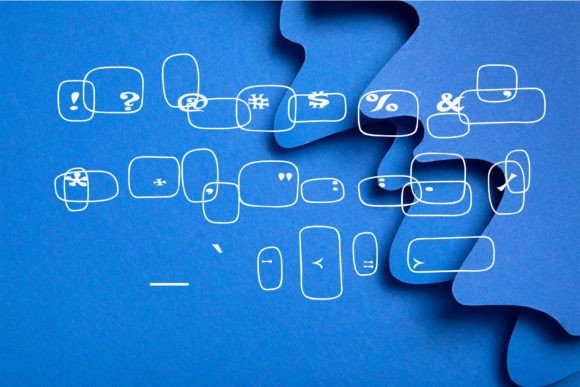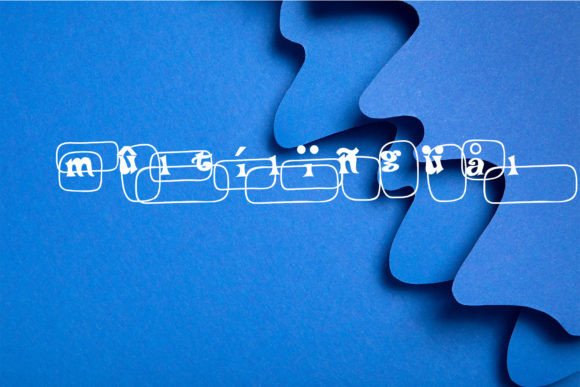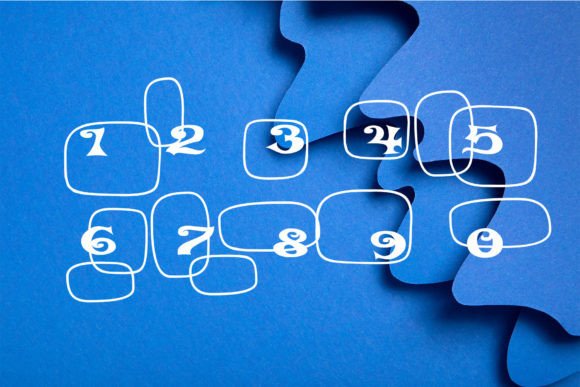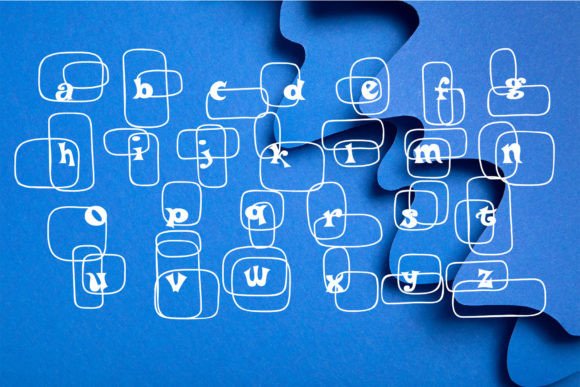
Unleash Your Creativity with Doctor Wild Font
Are you tired of using the same old fonts in your design projects? Look no further than Doctor Wild Font, a playful and fun display font that’s sure to add a touch of whimsy to your work. With its unique and eye-catching design, Doctor Wild Font is the perfect choice for designers and crafters looking to make a statement.
What is Doctor Wild Font?
Doctor Wild Font is a display font that’s designed to make a bold impression. Its playful and fun design makes it perfect for use in a variety of projects, from posters and flyers to logos and branding materials. The font’s unique design features a mix of bold lines, curves, and irregular shapes, giving it a quirky and offbeat feel that’s sure to grab attention.
Key Features of Doctor Wild Font
- Playful and Fun Design: Doctor Wild Font features a playful and fun design that’s perfect for adding a touch of whimsy to your projects.
- Unique and Eye-Catching: The font’s unique design makes it stand out from the crowd, ensuring that your projects will grab attention and leave a lasting impression.
- Bold and Confident: Doctor Wild Font is a bold and confident font that’s perfect for making a statement in your designs.
- Easy to Read: Despite its bold design, Doctor Wild Font is easy to read, making it perfect for use in a variety of projects.
Why Use Doctor Wild Font?
There are many reasons why you should consider using Doctor Wild Font in your design projects. Here are just a few:
- Add a Touch of Whimsy: Doctor Wild Font is perfect for adding a touch of whimsy to your projects. Its playful design makes it ideal for use in projects that require a bit of personality.
- Stand Out from the Crowd: With its unique and eye-catching design, Doctor Wild Font is sure to make your projects stand out from the crowd.
- Perfect for Display Text: Doctor Wild Font is designed specifically for use as display text, making it perfect for use in headlines, titles, and other prominent text elements.
How to Use Doctor Wild Font
Using Doctor Wild Font is easy. Here are a few tips to get you started:
- Use it as a Display Font: Doctor Wild Font is designed specifically for use as a display font, so use it to add a touch of personality to your headlines, titles, and other prominent text elements.
- Experiment with Different Sizes: Doctor Wild Font looks great in a variety of sizes, so don’t be afraid to experiment to find the perfect size for your project.
- Pair it with Other Fonts: Doctor Wild Font pairs well with a variety of other fonts, so try pairing it with some of your favorite fonts to create a unique and interesting look.
Doctor Wild Font is a playful and fun display font that’s perfect for designers and crafters looking to add a touch of whimsy to their projects. With its unique and eye-catching design, bold and confident style, and ease of use, Doctor Wild Font is sure to become a favorite in your font collection. So why wait? Add Doctor Wild Font to your projects today and see the amazing results for yourself!
- What type of font is Doctor Wild Font?: Doctor Wild Font is a display font designed for use in headlines, titles, and other prominent text elements.
- Is Doctor Wild Font easy to read?: Yes, despite its bold design, Doctor Wild Font is easy to read, making it perfect for use in a variety of projects.